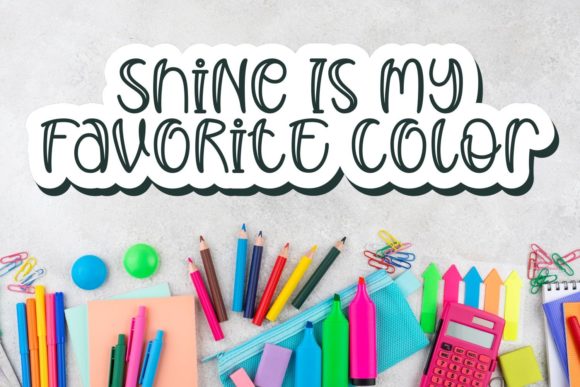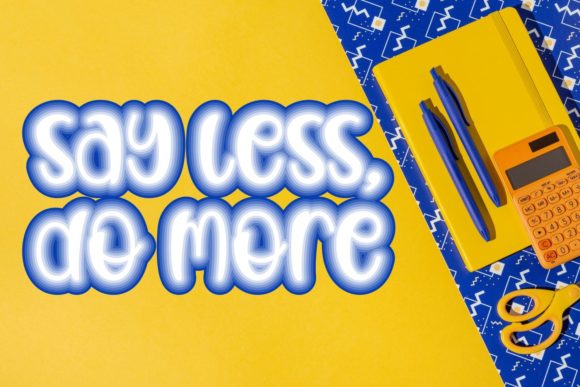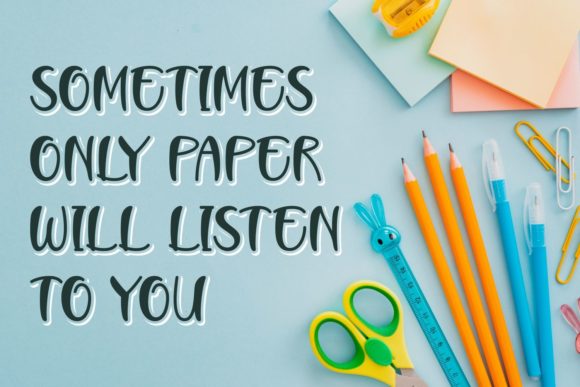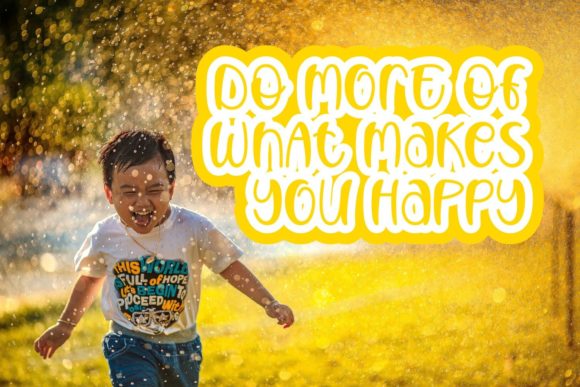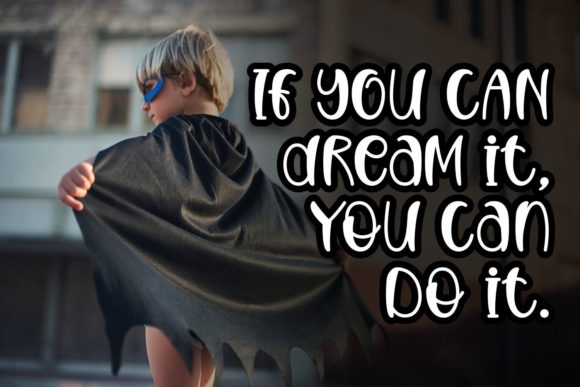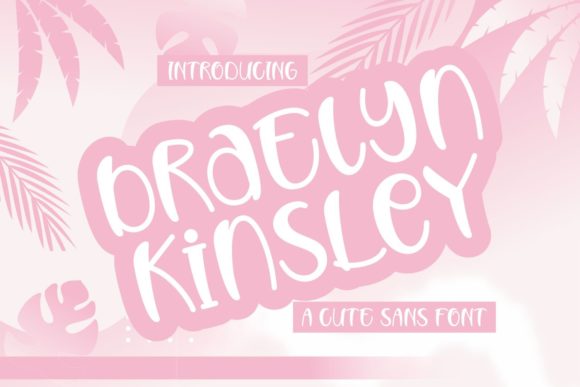
Braelyn Kinsley Font: The Ultimate Guide to a Relaxed, Friendly, and Jolly Handwritten Font
Are you tired of using the same old fonts for your creative projects? Look no further than the Braelyn Kinsley font, a relaxed, friendly, and jolly handwritten font that’s sure to take your designs to the next level. In this article, we’ll dive into the world of Braelyn Kinsley, exploring its features, benefits, and uses, as well as provide tips and inspiration for designers and crafters.
What is Braelyn Kinsley Font?
Braelyn Kinsley is a beautifully crafted handwritten font that’s perfect for adding a personal touch to your designs. With its relaxed, friendly, and jolly vibe, this font is ideal for creating a wide range of projects, from invitations and greeting cards to posters and social media graphics.
Expertly designed to make your creation look out of this world, Braelyn Kinsley is a versatile font that will look gorgeous on a variety of ideas. Whether you’re a designer, crafter, or DIY enthusiast, this font is sure to become a favorite in your toolkit.
Key Features of Braelyn Kinsley Font
• Handwritten style: Braelyn Kinsley has a beautiful, handwritten look that’s perfect for adding a personal touch to your designs.
• Relaxed and friendly vibe: This font exudes a relaxed, friendly, and jolly vibe that’s sure to appeal to a wide range of audiences.
• Versatile: Braelyn Kinsley can be used for a wide range of projects, from invitations and greeting cards to posters and social media graphics.
• Easy to read: Despite its handwritten style, Braelyn Kinsley is easy to read, making it perfect for body text and headlines.
Benefits of Using Braelyn Kinsley Font
So why should you choose Braelyn Kinsley for your next project? Here are just a few benefits of using this amazing font:
• Adds a personal touch: Braelyn Kinsley’s handwritten style adds a personal touch to your designs, making them stand out from the crowd.
• Evokes emotions: The relaxed, friendly, and jolly vibe of this font is sure to evoke emotions and create a connection with your audience.
• Versatile: Braelyn Kinsley can be used for a wide range of projects, making it a great addition to your font library.
Uses of Braelyn Kinsley Font
Braelyn Kinsley is a versatile font that can be used for a wide range of projects, including:
• Invitations: Use Braelyn Kinsley to create beautiful, handwritten-style invitations for weddings, parties, and other special events.
• Greeting cards: This font is perfect for creating heartfelt greeting cards for birthdays, holidays, and other special occasions.
• Posters: Braelyn Kinsley’s relaxed, friendly vibe makes it perfect for creating eye-catching posters for events, promotions, and more.
• Social media graphics: Use this font to create engaging social media graphics that will help you connect with your audience.
Tips for Using Braelyn Kinsley Font
Here are a few tips for getting the most out of Braelyn Kinsley:
• Experiment with sizes: Braelyn Kinsley looks great in a variety of sizes, so don’t be afraid to experiment to find the perfect size for your project.
• Pair with other fonts: This font pairs well with a wide range of other fonts, so feel free to get creative and find the perfect combination for your project.
• Use for headlines and body text: Braelyn Kinsley is easy to read, making it perfect for both headlines and body text.
Need some inspiration for your next project? Here are a few ideas to get you started:
• Create a handmade-style invitation: Use Braelyn Kinsley to create a beautiful, handmade-style invitation for a special event.
• Design a social media graphic: Use this font to create an engaging social media graphic that will help you connect with your audience.
• Make a greeting card: Braelyn Kinsley is perfect for creating heartfelt greeting cards for special occasions.
In conclusion, Braelyn Kinsley is a relaxed, friendly, and jolly handwritten font that’s perfect for adding a personal touch to your designs. With its versatile style and easy-to-read format, this font is sure to become a favorite in your toolkit. So why wait? Download Braelyn Kinsley today and start creating amazing projects that will leave a lasting impression on your audience!